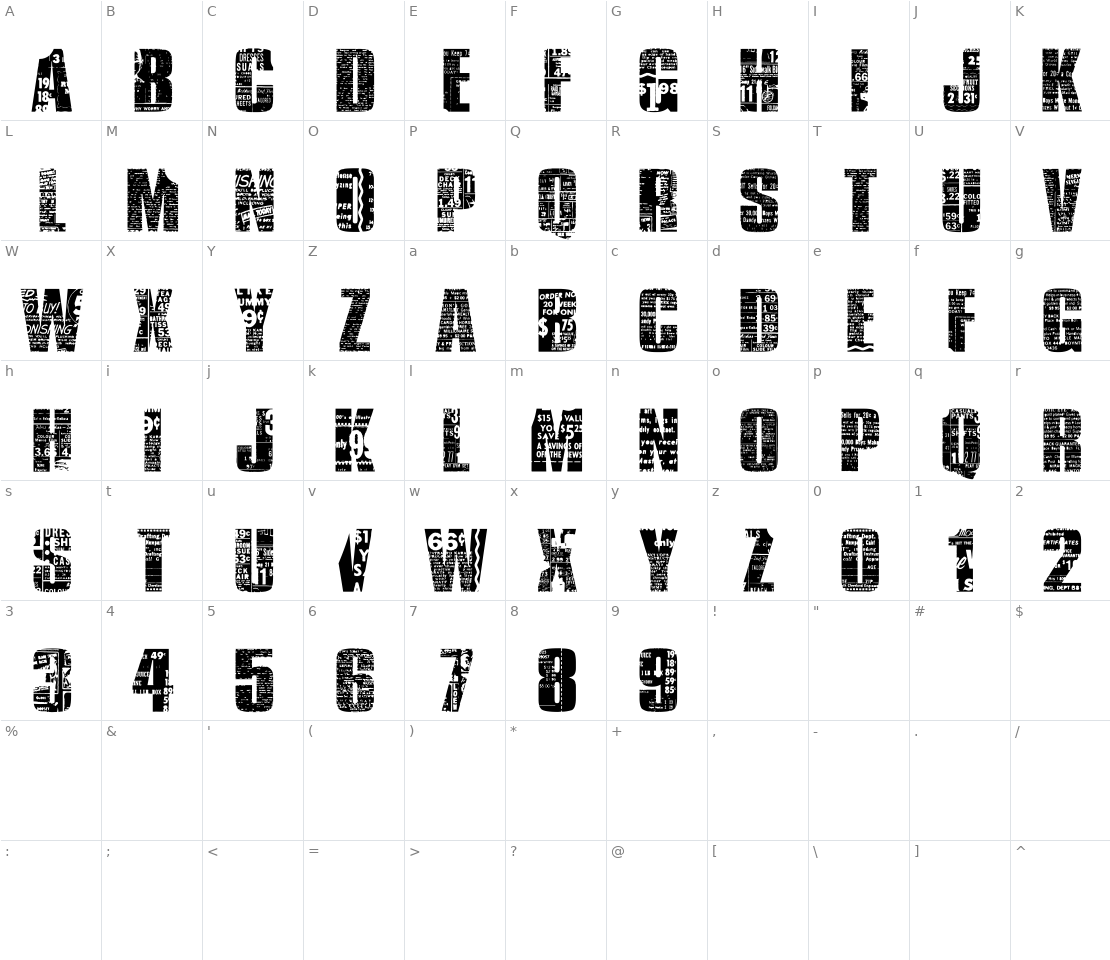
Buy More
Buy More is a gritty, uppercase display face from imagex with heavy letterforms that look like they were cut from old newspaper stock and photocopied a few too many times. The distressed texture and uneven edges give it a raw, urban collage quality, right at home on gig posters, zine covers, and street-level branding. Best kept big, where the grungy detail and bold weight can do the talking.